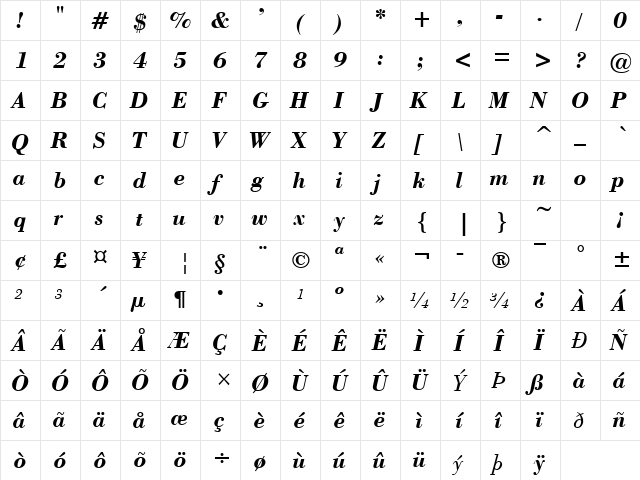
Capelli Bold Italic
Design Context for Capelli Typeface
Capelli takes a measured approach to typography — its balanced proportions and neutral character make it a reliable workhorse for both digital and print work. The dynamic lean of this cut emphasises speed and emphasis in any layout. The heavy weight commands attention and anchors typographic hierarchies.
Pro Tip: Use Capelli for emphasis, pull quotes, and subheadings where its slanted energy can add rhythm to the layout.